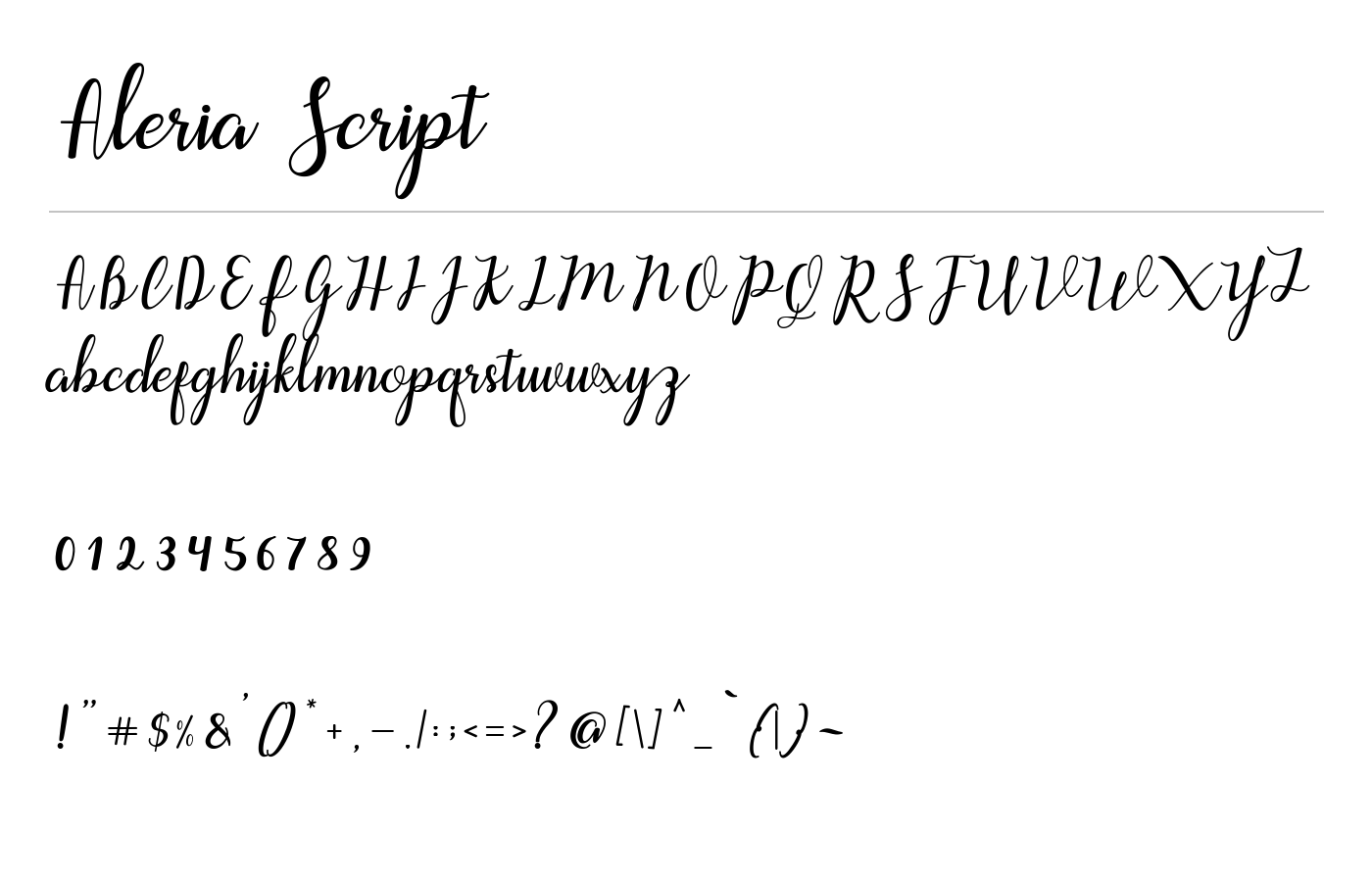
Aleria Script is a delicate and elegant handwritten script font characterized by slender, flowing strokes and a graceful, slightly tall x-height. Its refined curves and smooth connections give it a feminine, modern charm that works beautifully for invitations, branding, and stylish editorial projects. This font’s light weight and airy feel make it perfect for adding a touch of sophistication and personal flair to headlines, logos, and decorative text.
Aleria Script Font